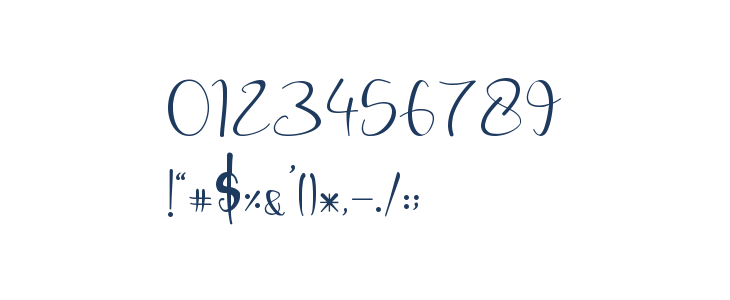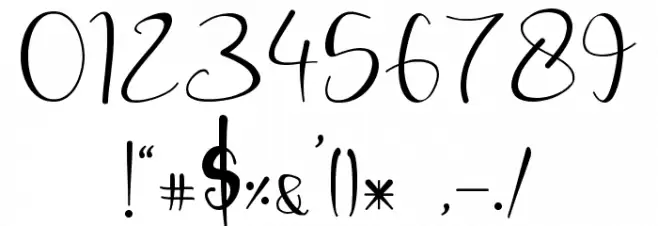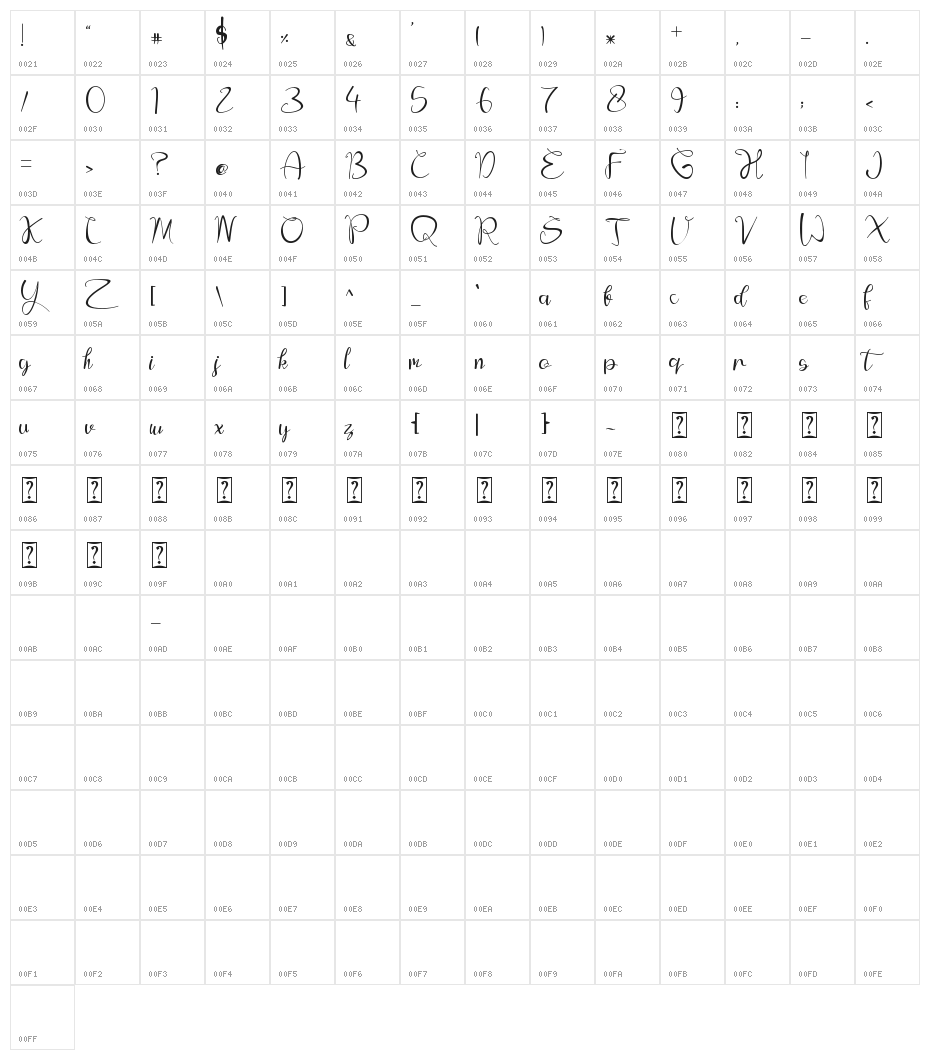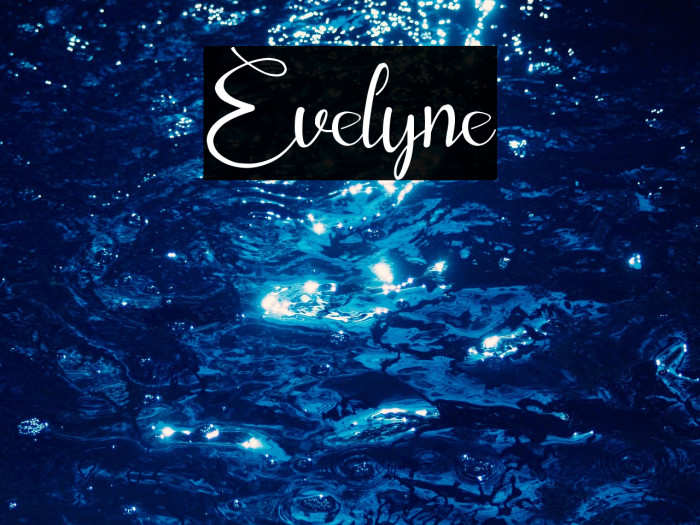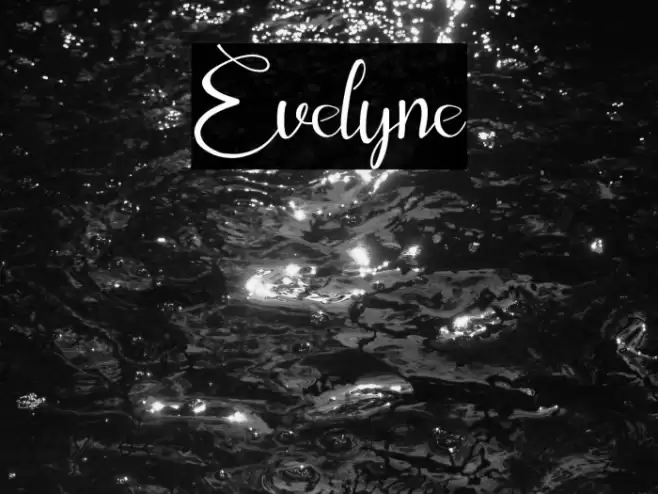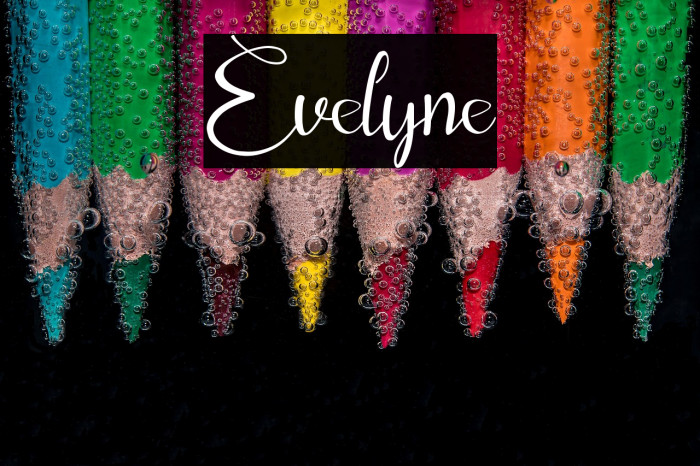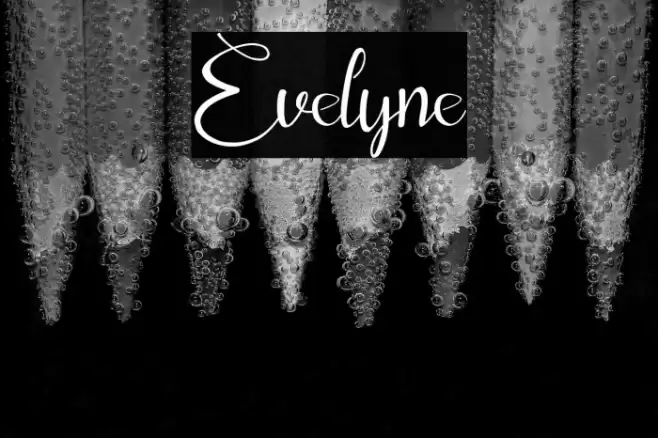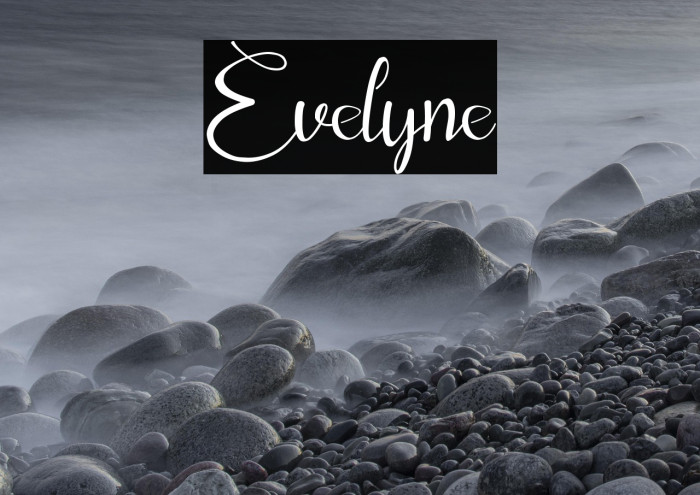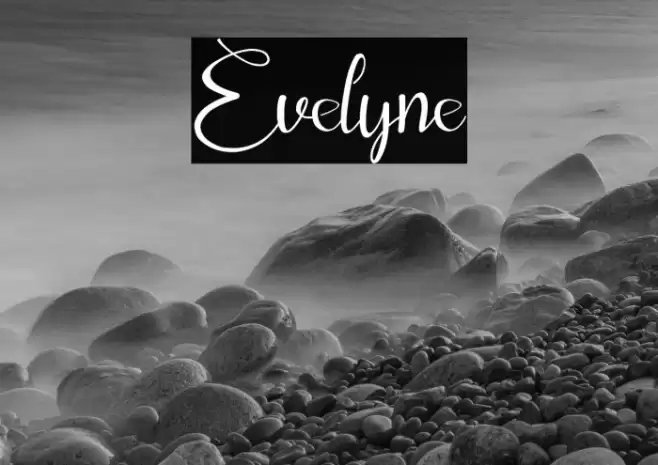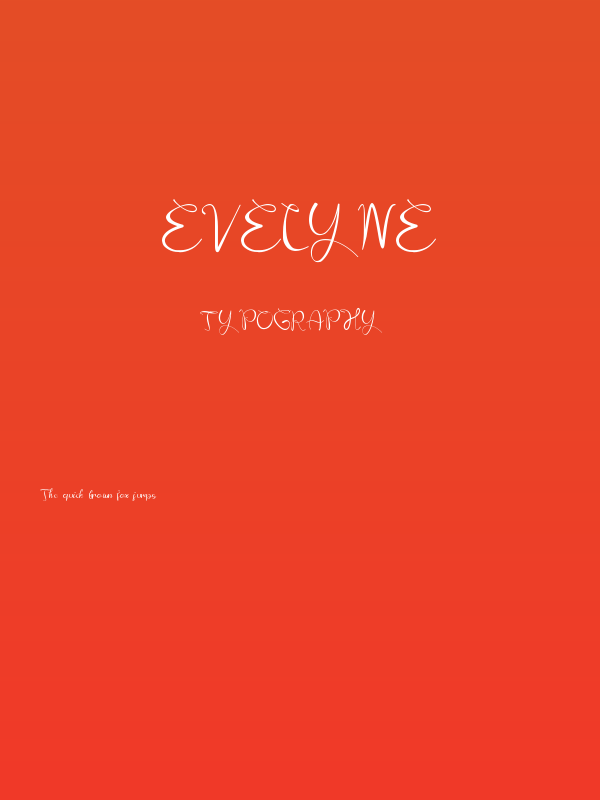
Evelyne Font
Evelyne Description
This font features an elegant and flowing script style, characterized by its smooth, cursive strokes and artistic flair. The uppercase letters exhibit a graceful, looping design with a touch of whimsy, while the lowercase letters maintain a consistent fluidity that enhances readability. The numerals are stylishly curved, complementing the overall aesthetic. Special characters are thoughtfully integrated, maintaining the font's cohesive look. This font's artistic nature makes it suitable for creative and expressive projects, offering a sophisticated yet approachable feel.
| Proposed Projects | Ideal for wedding invitations, greeting cards, branding, and elegant logos. |